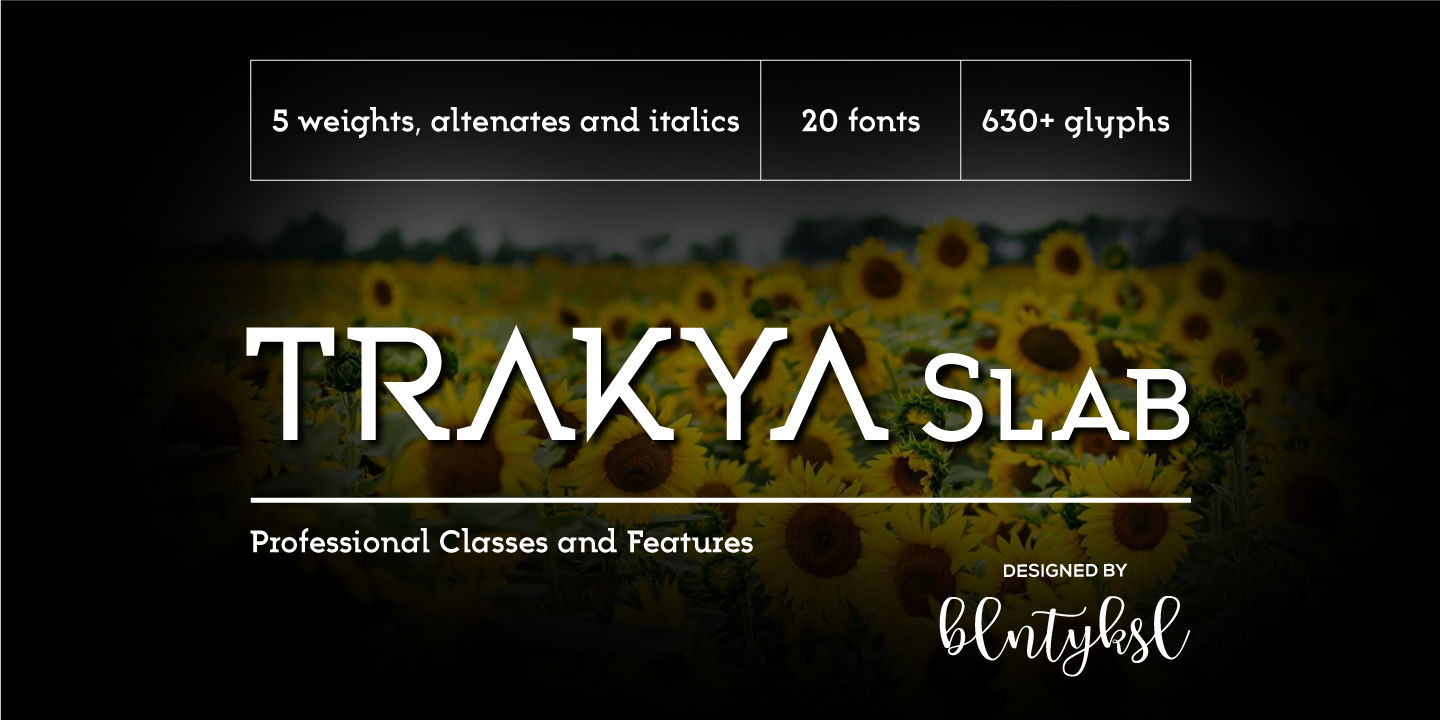
Trakya Slab Font is perfect for regional heritage branding, historical museum signage, cultural festival graphics, traditional restaurant menus, archaeological publication designs, tourism promotion materials, local artisan packaging, and authentic designs that require distinctive Thracian regional character and cultural authenticity.
This font is exciting because it honors the rich cultural heritage of the Trakya region through its robust slab serif letterforms that reflect the enduring strength and historical significance of this ancient crossroads between Europe and Asia. The distinctive character design embodies the cultural depth and regional pride of Thracian heritage, making it perfect for projects celebrating local identity and historical authenticity.
Trakya Slab Font belongs to the regional slab serif font family, featuring cultural styling and heritage elements that enhance its authenticity for tourism and culturally-focused design applications.
Whether you're creating regional tourism branding or cultural heritage graphics, Trakya Slab Font Free Download delivers exceptional cultural resonance and regional sophistication. This typeface represents the perfect balance between historical tradition and contemporary functionality, making it essential for designers working on projects that celebrate regional identity and cultural heritage. The font's distinguished presence works beautifully in cultural communications, tourism materials, and heritage projects, providing excellent readability while maintaining its regional character that transforms any design with Thracian authenticity across all media platforms and cultural tourism communications.